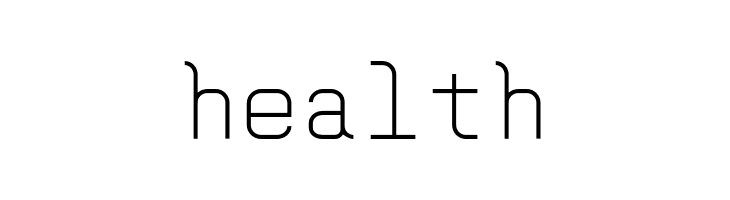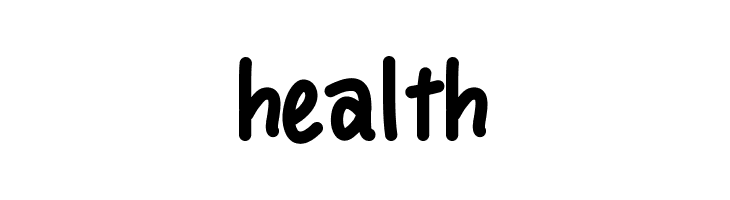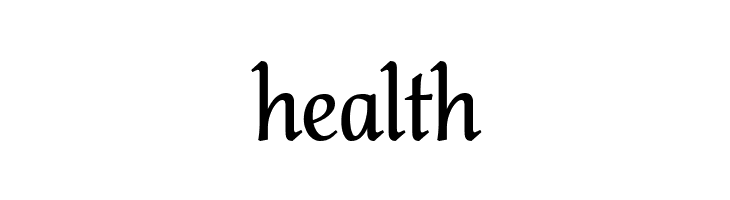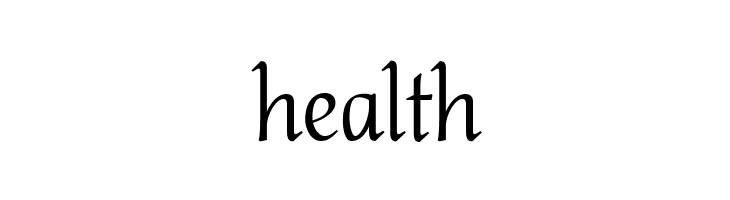
A bold, vintage-inspired font with a modern edge, perfect for impactful designs.
A bold, high-contrast serif font with a vintage yet modern style.
An elegant, high-contrast script font with flowing, interconnected letters.
A bold serif font with high contrast and a classic yet modern style.
A classic serif font with elegant curves and a calligraphic touch.
A semi-bold serif font with elegant curves and classic style.
A pixelated, retro-style font with a blocky, digital appearance.
A bold, playful handwritten font with rounded, consistent strokes.
A bold, monospaced font with geometric lines and uniform character width.
A clean, geometric monospaced font ideal for technical and modern applications.